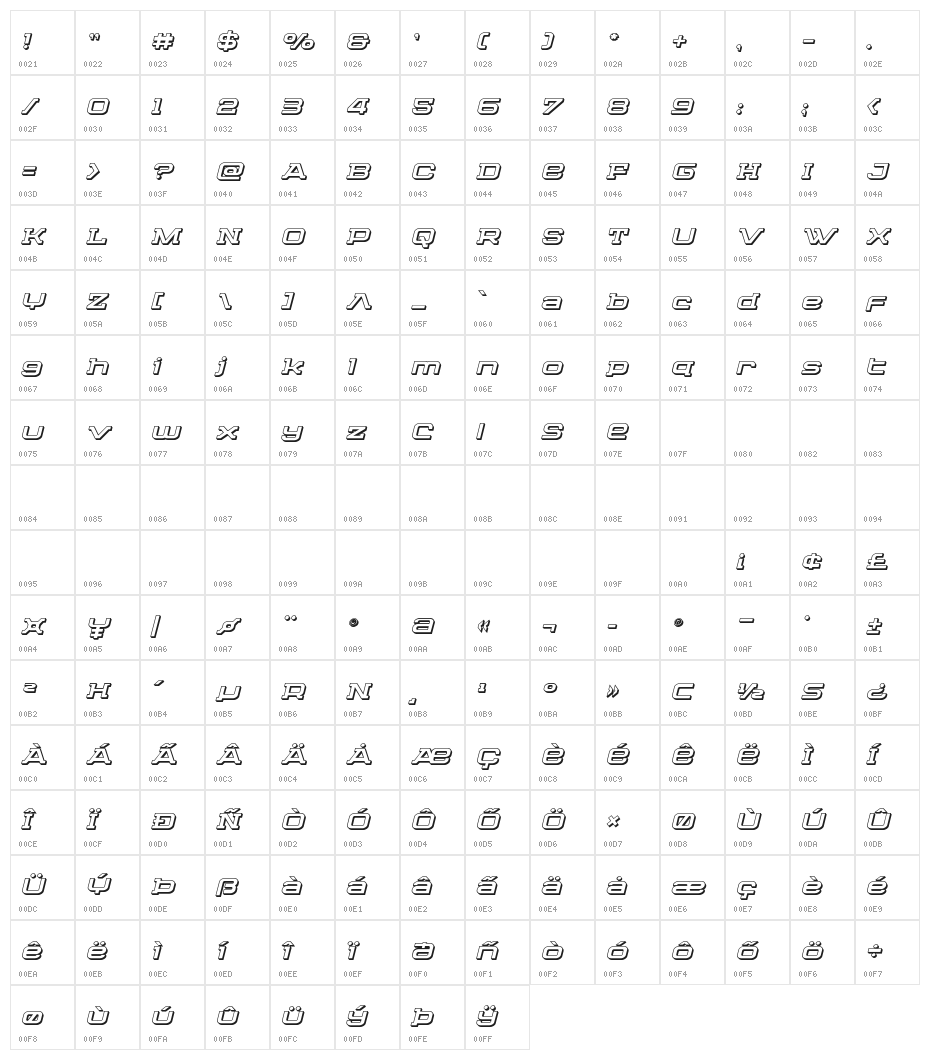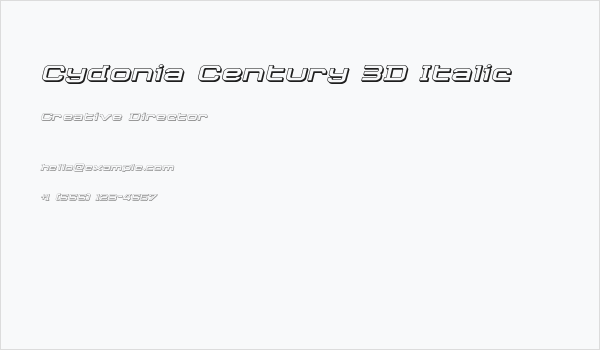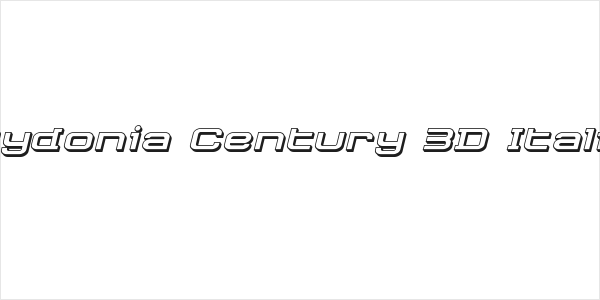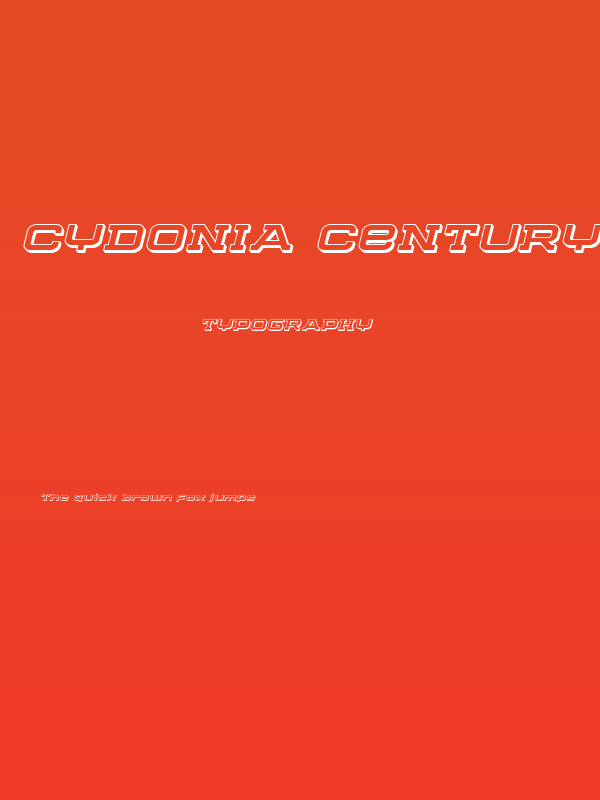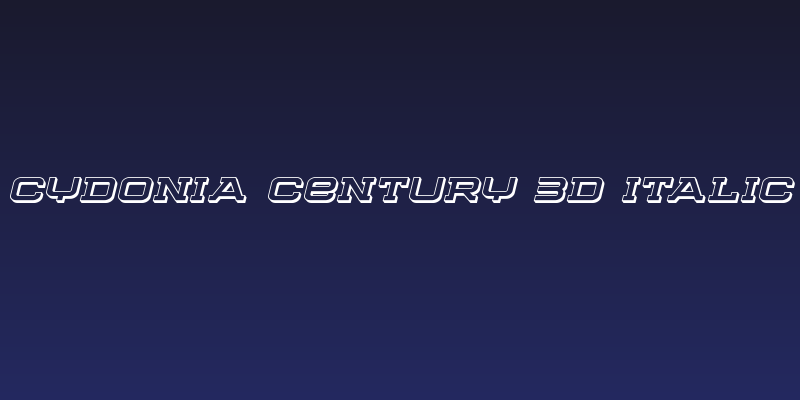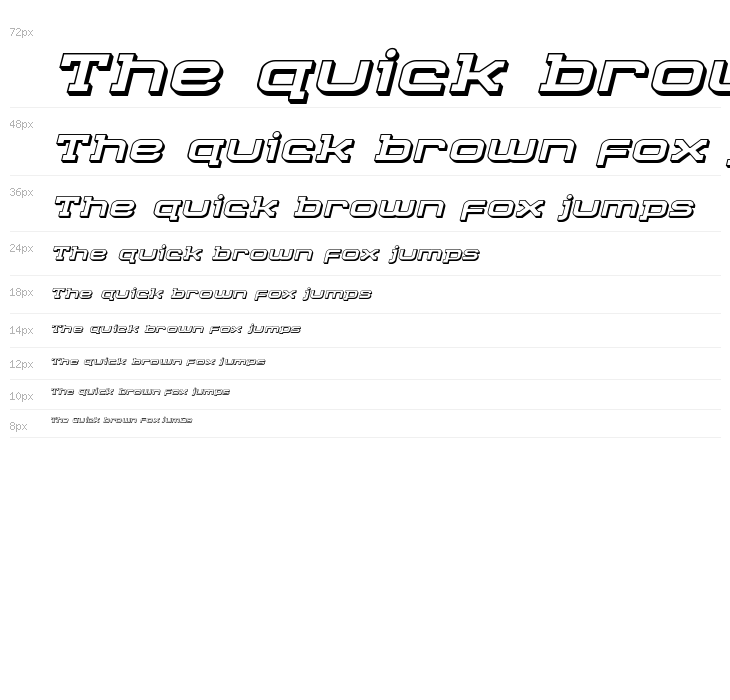
Cydonia Century 3D Italic Font
Cydonia Century 3D Italic Description
This font features a bold, three-dimensional effect with a distinct italic slant, giving it a dynamic and futuristic appearance. The characters are outlined, creating a layered look that adds depth and visual interest. The uppercase and lowercase letters maintain a consistent style, with sharp angles and clean lines. Numbers and special characters are designed to match the overall aesthetic, ensuring uniformity across all glyphs. The font's unique style makes it suitable for projects that require a modern and eye-catching typeface.
Proposed ProjectsIdeal for sci-fi themed designs, video game titles, posters, and branding that requires a modern, standout typeface.